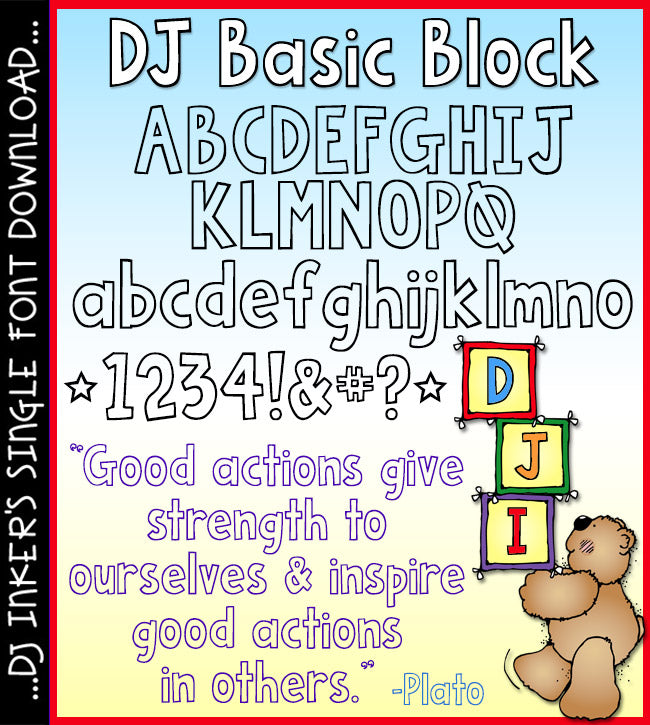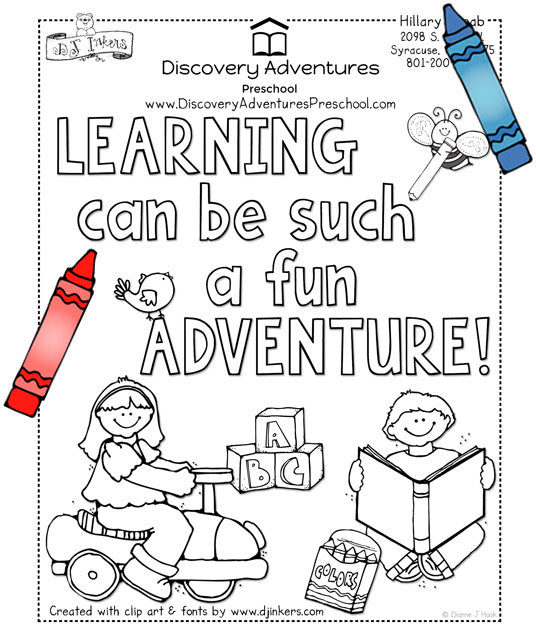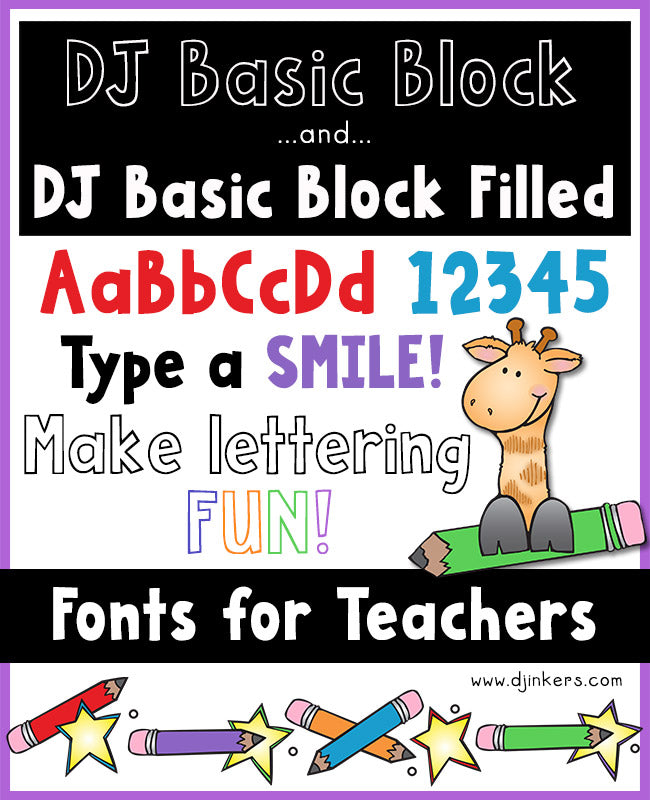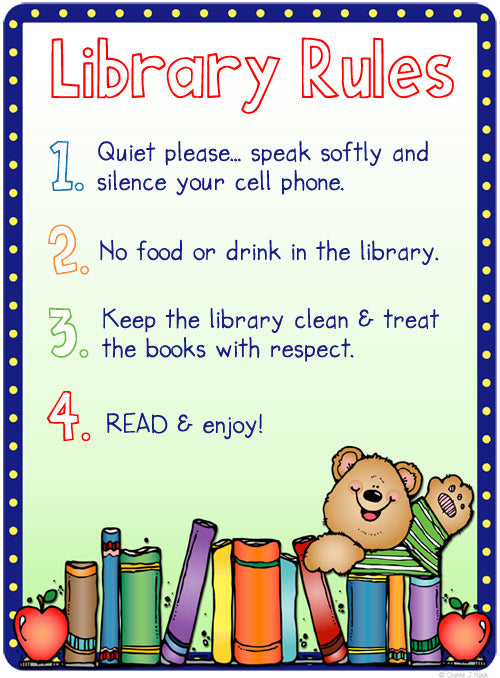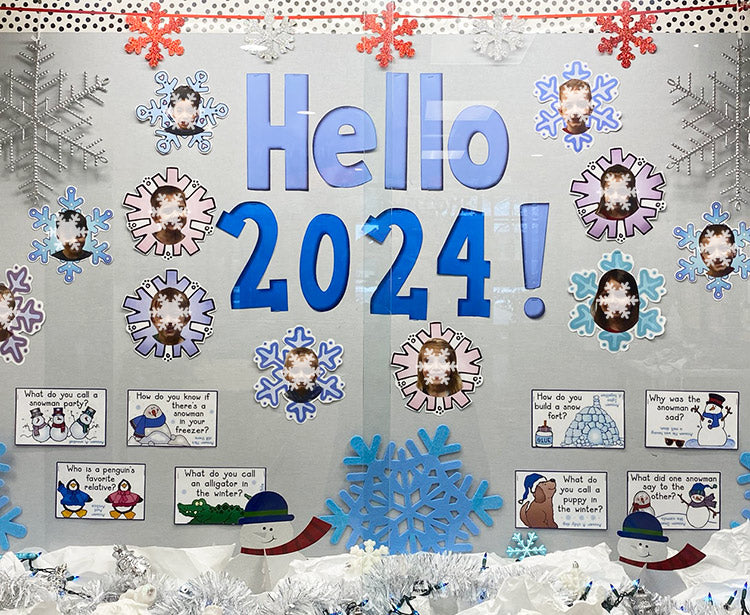
DJ Inkers' Basic Block font is great for kids, school, posters and headlines.
DJ Basic Block Font Download
DJ Inkers' Basic Block font is great for kids, school, posters and headlines.
DJ Basic Block Font Download
You've GOT to have a good block letter font in your collection! Whether you're making something fun & creative, or working on a project that needs an extra smile, you'll love typing with DJ Basic Block. These letters are great for posters, headlines, coloring projects, layering with clip art and more.